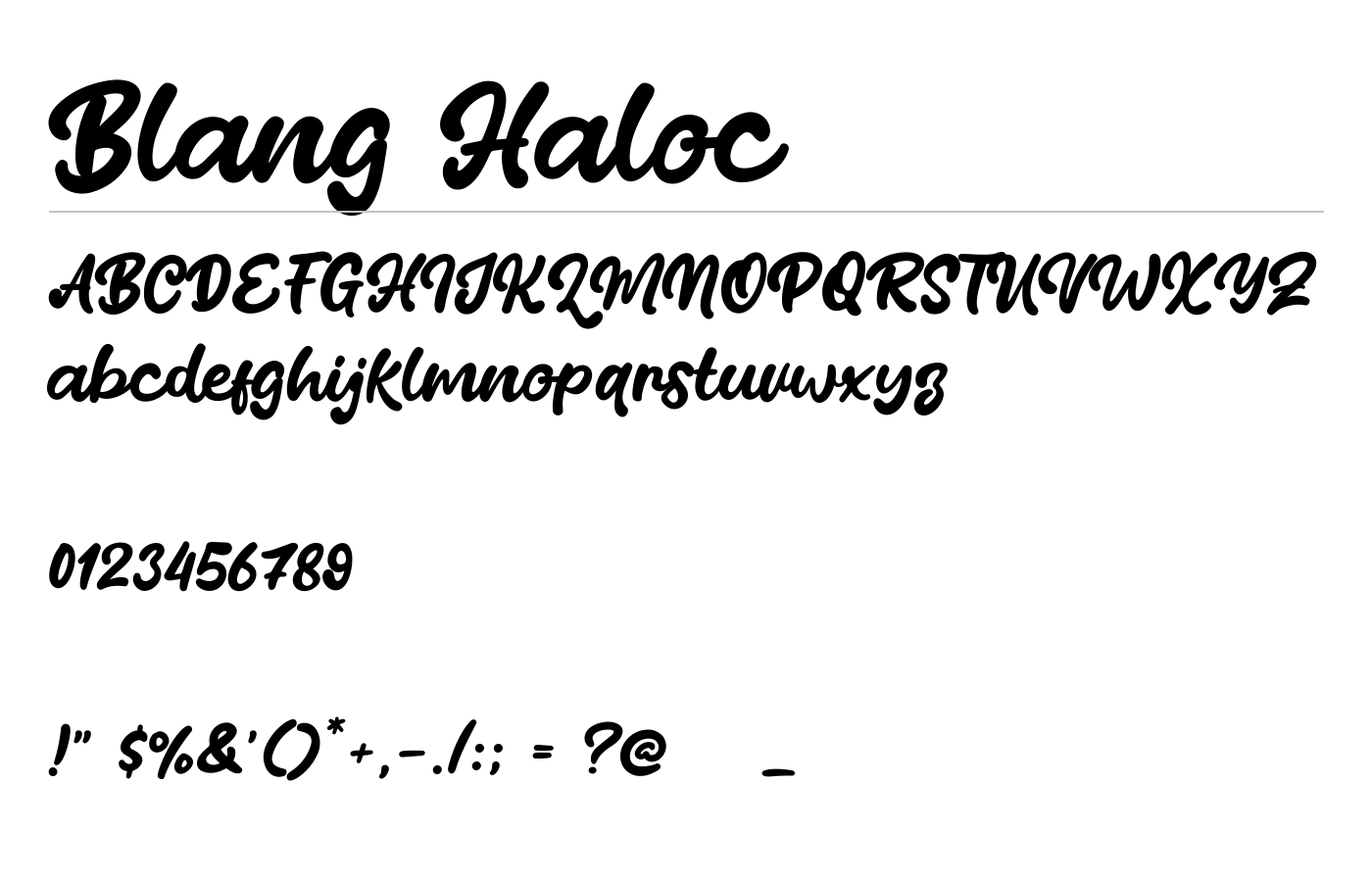
Blang Haloc is a bold, casual script font with smooth, rounded strokes and a friendly, handwritten feel. Its consistent weight and flowing letterforms make it perfect for inviting headlines, logos, or branding that seeks warmth and approachability. This font works well in creative and informal contexts where a personal touch is desired.
Blang Haloc Font
About Blang Haloc Font